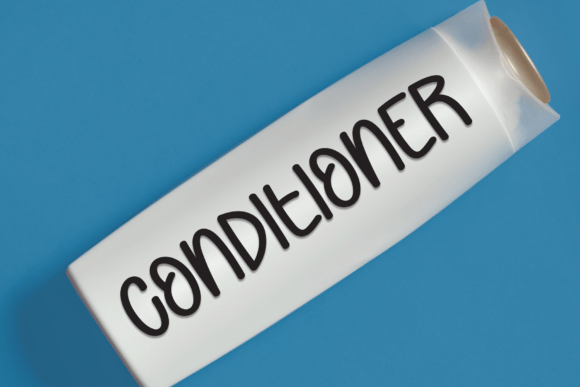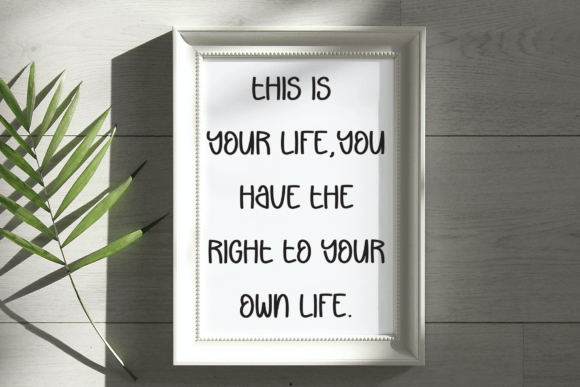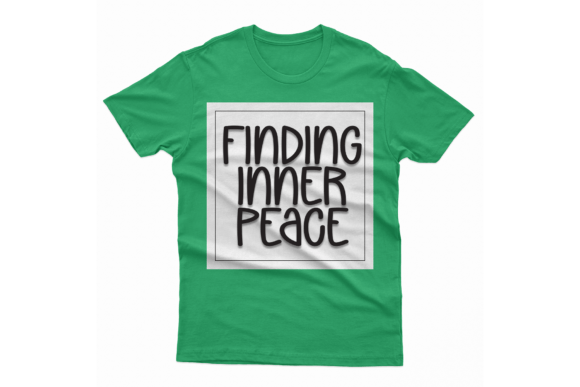
Introduction to Merry Designer Font
Have you ever found yourself in the midst of a creative project, staring blankly at a blank canvas, desperate for that perfect design element to bring your vision to life? For designers, this moment of uncertainty is all too familiar. But what if I told you that there’s a font that can turn that frown upside down and inject a dash of fun into your design palette?
Enter the Merry Designer Font, a delightful handwritten display font that embodies both sweetness and friendliness. This charming font is perfect for designers looking to add a playful touch to their projects, from wedding invitations to distinctive cards. With its high-quality design and transparent background, this font is a valuable resource for any creative project. And the best part? It’s available for a free download, making it an instant addition to your design arsenal.
Whether you’re a seasoned pro or just starting out, the Merry Designer Font is sure to become a go-to design resource. So why not give it a try and see how it can elevate your next creative project?
Key Features of Merry Designer Font
- High-quality design resource ideal for creative projects, including holiday-themed designs, cards, and gift tags.
- Transparent background option allows for seamless integration with various design elements and backgrounds.
- Resolution-independent design ensures crisp and clear text display at any resolution, from low to high DPI.
- Unique, handcrafted design aesthetic sets it apart from other fonts and adds a touch of personality to creative projects.
- Perfect for designers and artists working on holiday-themed, winter, or festive projects, including greeting cards, gift tags, and more.
Honest Review: Merry Designer Font
I recently had the opportunity to try out the Merry Designer Font, and I must say it’s been a game-changer for my creative projects. This font is a fantastic design resource that offers a high-quality, transparent background that makes it perfect for any design need.
- ✨ What works well: The Merry Designer Font is incredibly versatile and can be used for a wide range of creative projects, from brochures to social media graphics.
However, I did encounter a few limitations while using the font. For example:
- ⚠️ Limited font styles: While the Merry Designer Font is high-quality, it’s limited to a single style, which may not be ideal for projects that require multiple font styles.
- ⚠️ No customization options: Unlike some other fonts, the Merry Designer Font doesn’t offer any customization options, which may be a drawback for designers who like to tweak their fonts to fit their specific needs.
Overall, I’m very impressed with the Merry Designer Font. It’s a free download that’s perfect for designers on a budget, and it’s incredibly easy to use. While it may have a few limitations, it’s a solid design resource that’s definitely worth checking out.
Merry Designer Font
The Merry Designer Font is a high-quality design resource perfect for creative projects that require a unique touch. With its transparent background, this font can be easily incorporated into various design platforms.
Tips for Getting the Most Out of Merry Designer Font
To get the most out of the Merry Designer Font, experiment with different font sizes, colors, and combinations. Use it in conjunction with other design elements, such as graphics and images, to create visually appealing designs.
Yes, the Merry Designer Font has a transparent background, making it perfect for designers who want to create designs with a clean and minimalist look. This feature allows you to easily overlay the font on top of images or other design elements.